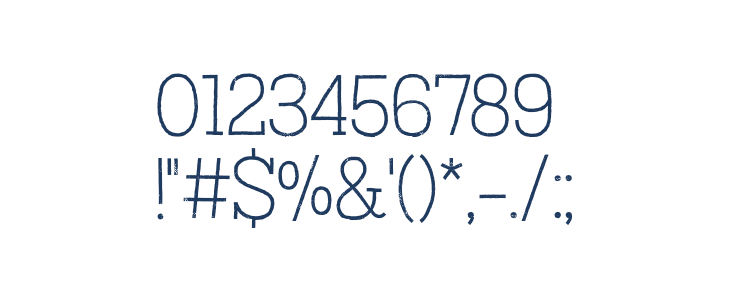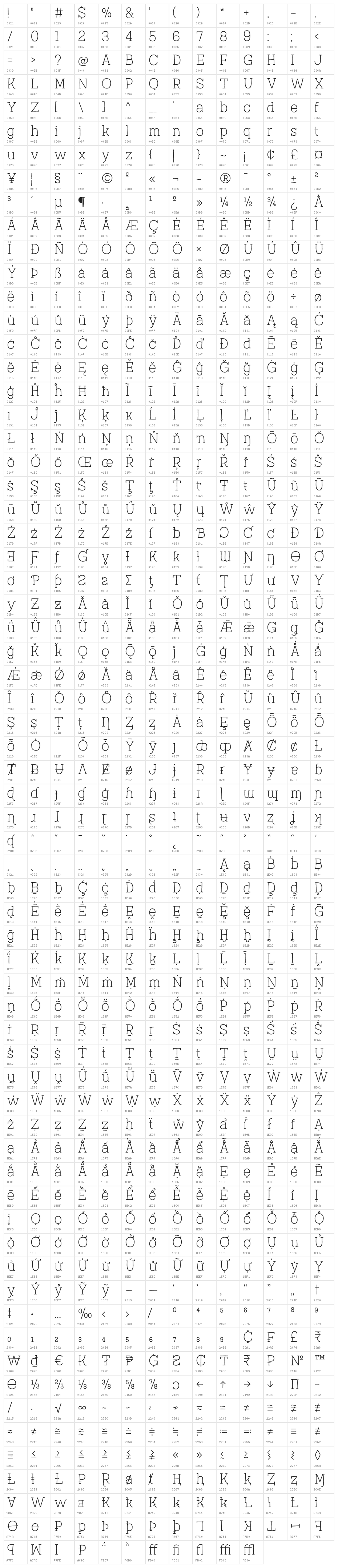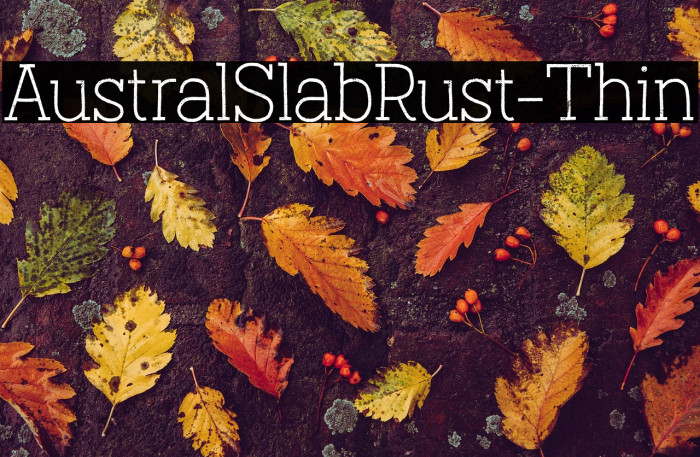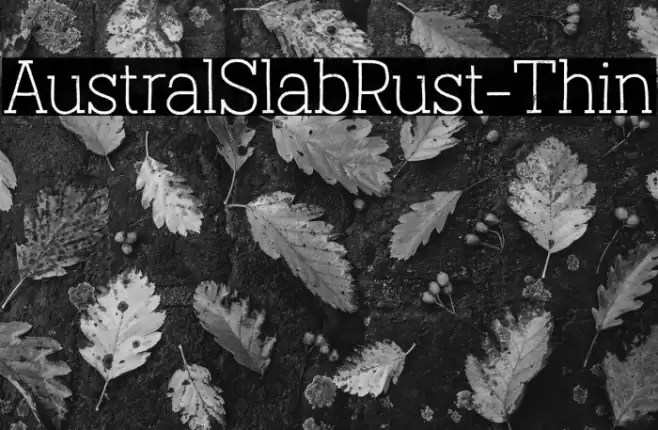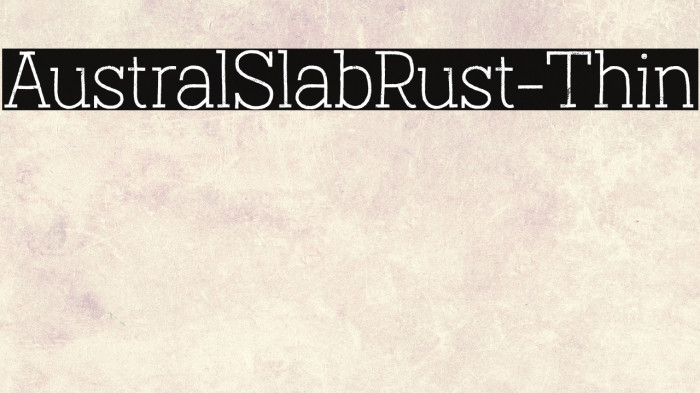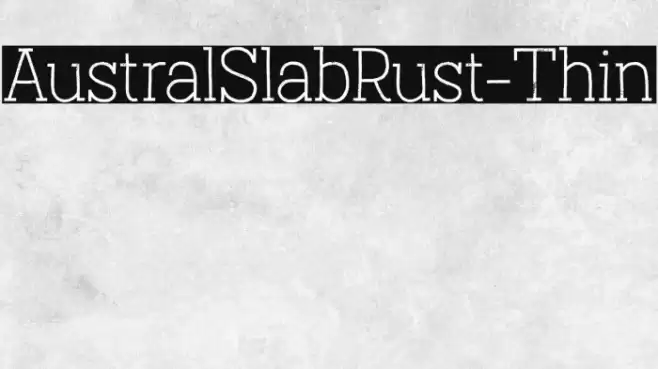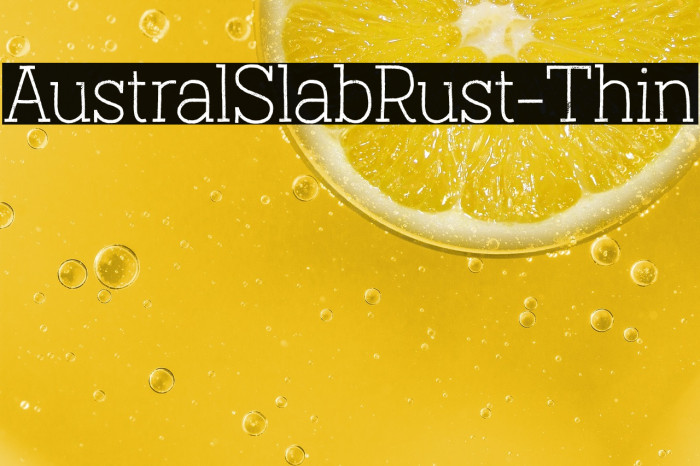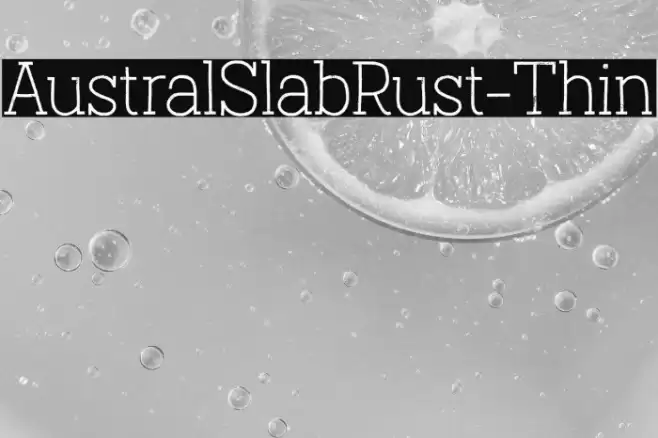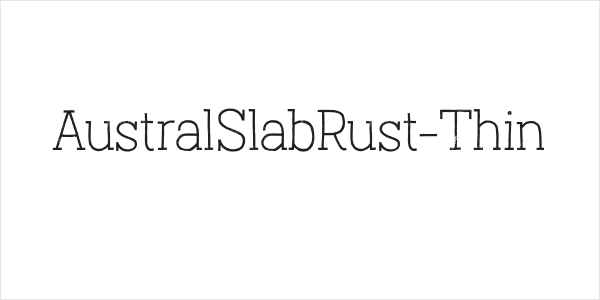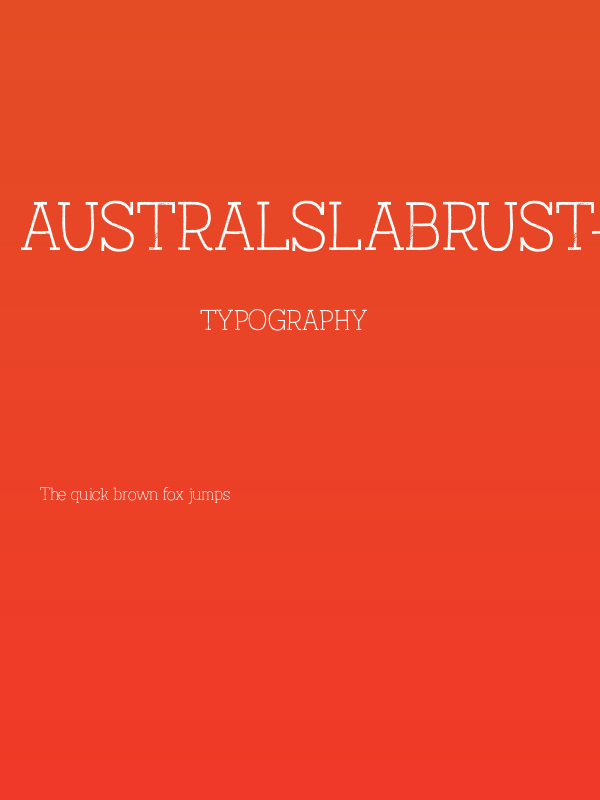
AustralSlabRust-Thin Font
AustralSlabRust-Thin Description
This font features a distinct slab serif style with a rustic, weathered appearance. The characters have a thin weight, giving them an elegant and refined look, while the rough edges add a vintage, handcrafted feel. The uppercase and lowercase letters maintain a consistent height and width, ensuring readability. The numerals are clear and well-proportioned, matching the overall aesthetic of the alphabet. Special characters are included, each designed with the same attention to detail and texture. The font's unique combination of thin strokes and textured edges makes it suitable for projects that require a touch of authenticity and character.
| Proposed Projects | Ideal for branding, packaging, posters, and any design work that benefits from a vintage or handcrafted aesthetic. |